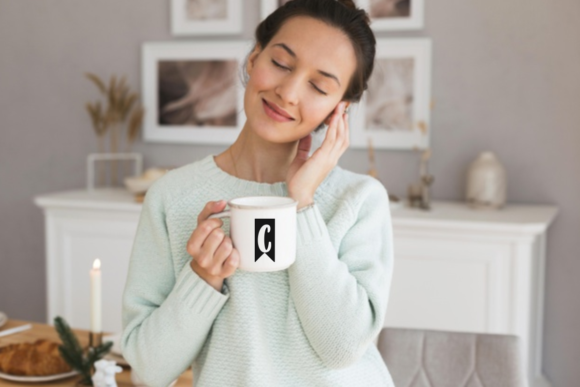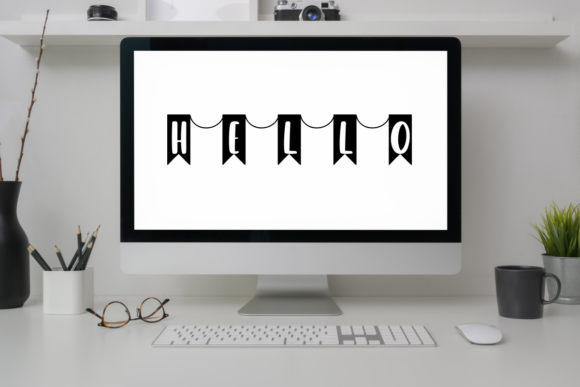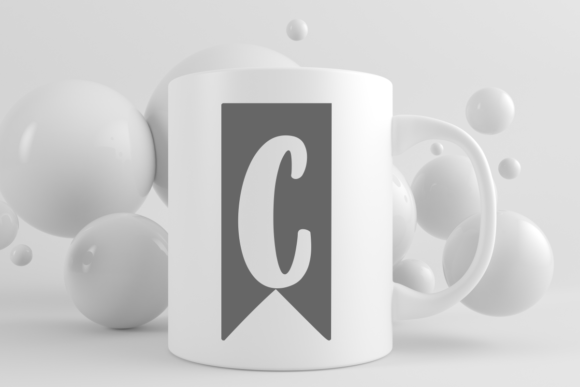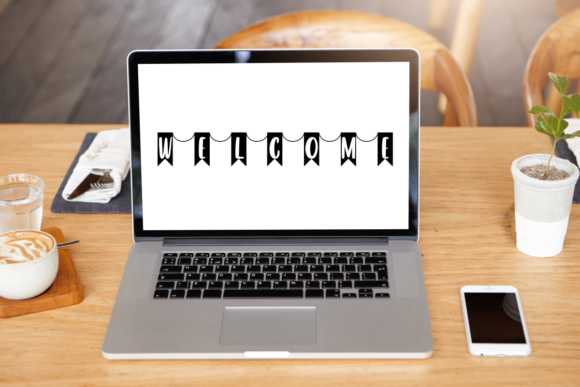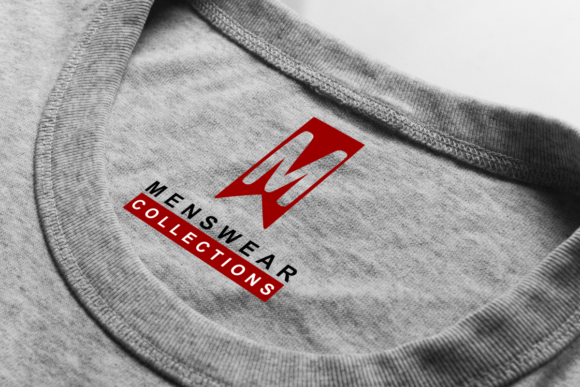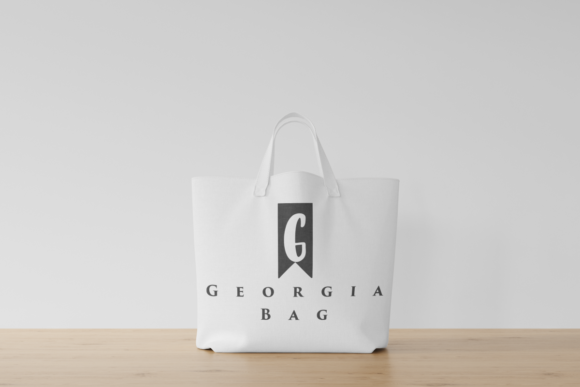
Congrats Font: The Perfect Handwritten Style for Your Crafty Projects
Are you looking for a font that can add a personal touch to your crafty projects? Do you want to create something that looks natural and effortless? Look no further than Congrats Font, a simple and neat handwritten font that’s perfect for a wide range of creative endeavors. In this article, we’ll take a closer look at Congrats Font, its features, and how you can use it to elevate your designs.
What is Congrats Font?
Congrats Font is a beautiful handwritten font that’s designed to give your projects a natural and effortless look. It’s a simple and neat font that’s perfect for use in letterheads, titles, stationery, and more. With its clean lines and flowing script, Congrats Font is sure to appeal to designers and crafters who are looking for a font that can add a personal touch to their work.
Key Features of Congrats Font
So, what makes Congrats Font so special? Here are some of its key features:
- Handwritten style: Congrats Font has a beautiful handwritten style that’s perfect for creating a personal and natural look.
- Simple and neat: Unlike some handwritten fonts, Congrats Font is simple and neat, making it easy to read and use in a variety of contexts.
- Crafty appeal: Congrats Font has a crafty appeal that’s perfect for designers and crafters who are looking for a font that can add a personal touch to their projects.
- Versatile: Congrats Font is versatile and can be used in a wide range of projects, from letterheads and titles to stationery and more.
How to Use Congrats Font in Your Projects
Now that we’ve covered the features of Congrats Font, let’s take a look at how you can use it in your projects. Here are some ideas to get you started:
- Letterheads and titles: Use Congrats Font to create beautiful letterheads and titles that add a personal touch to your documents and designs.
- Stationery: Congrats Font is perfect for use in stationery, such as greeting cards, invitations, and more.
- Crafting projects: Congrats Font is a great choice for crafters who want to add a personal touch to their projects, such as scrapbooking, journaling, and more.
- Digital designs: Congrats Font can also be used in digital designs, such as social media graphics, blog posts, and more.
Tips for Getting the Most Out of Congrats Font
Here are some tips for getting the most out of Congrats Font:
- Experiment with different sizes: Congrats Font looks great in a variety of sizes, so don’t be afraid to experiment to find the perfect size for your project.
- Pair with other fonts: Congrats Font pairs well with other fonts, so try pairing it with a bold font for headings or a sans-serif font for body text.
- Use it consistently: To get the most out of Congrats Font, use it consistently throughout your project. This will help to create a cohesive look and feel.
Congrats Font is a beautiful handwritten font that’s perfect for designers and crafters who are looking for a natural and effortless look. With its simple and neat design, Congrats Font is versatile and can be used in a wide range of projects, from letterheads and titles to stationery and more. By following the tips outlined in this article, you can get the most out of Congrats Font and create beautiful, professional-looking designs that showcase your creativity and style.